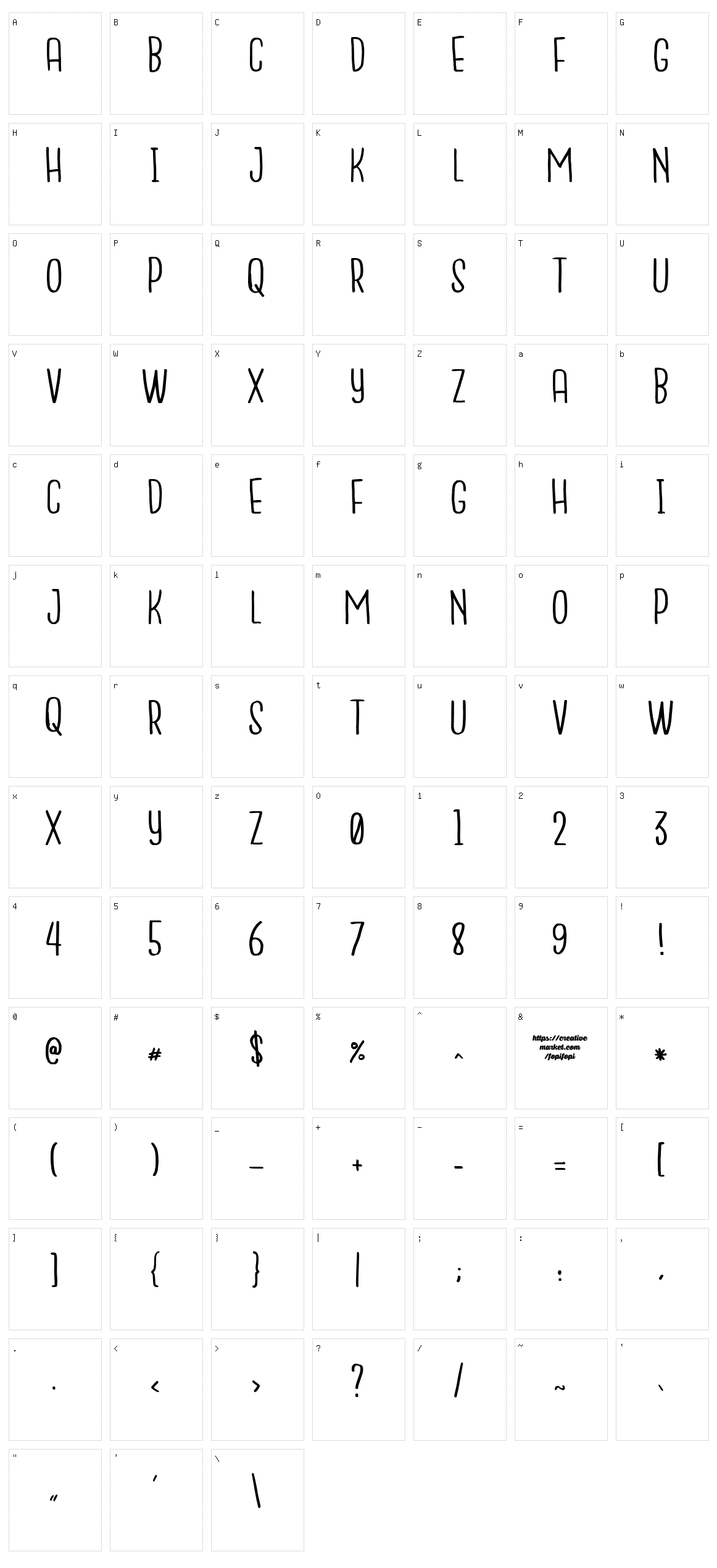
The free font Nanda is carefully designed by fopifopi, showcasing a thoughtful balance of creativity and usability and falls under the Script font style. When you download the ZIP file, it contains only 54.55 KB of font files, making it lightweight and quick to download. Please review the license details below to understand permitted usage and distribution rights. If license information is not available, we recommend using this font for personal projects only or contacting the author directly for commercial usage permissions.